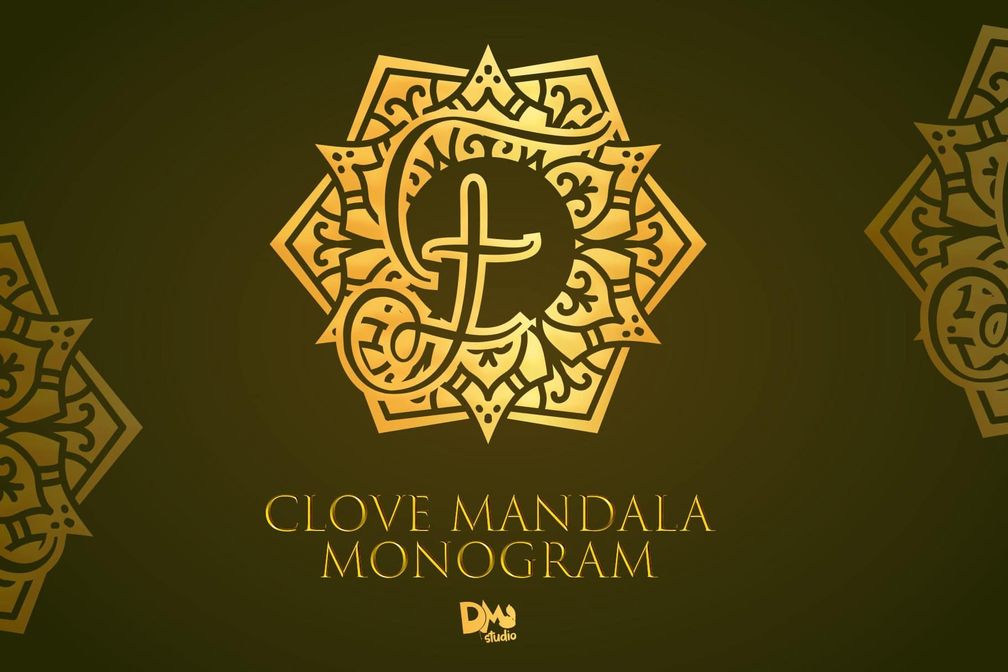
Clove Mandala Monogram
Clove Mandala Monogram – Elegant & Nature-Inspired Monogram Font
Clove Mandala Monogram is a beautifully crafted monogram font that merges aromatic clove elements with intricate mandala artistry. Inspired by the warmth and charm of spices and ornamental patterns, this font is perfect for organic branding, artisanal product packaging, personalized gifts, cozy wedding designs, and wellness projects. Its rich and detailed aesthetic brings a comforting, natural touch to any creative endeavor.
• Clove & Mandala Motifs: Each letter features elegant clove-inspired designs paired with ornate mandala detailing.
• Warm & Intricate Look: Blends soft organic curves with detailed decorative accents for a timeless and welcoming feel.
• Full Character Set: Includes uppercase, lowercase, numbers, punctuation, and multilingual support.